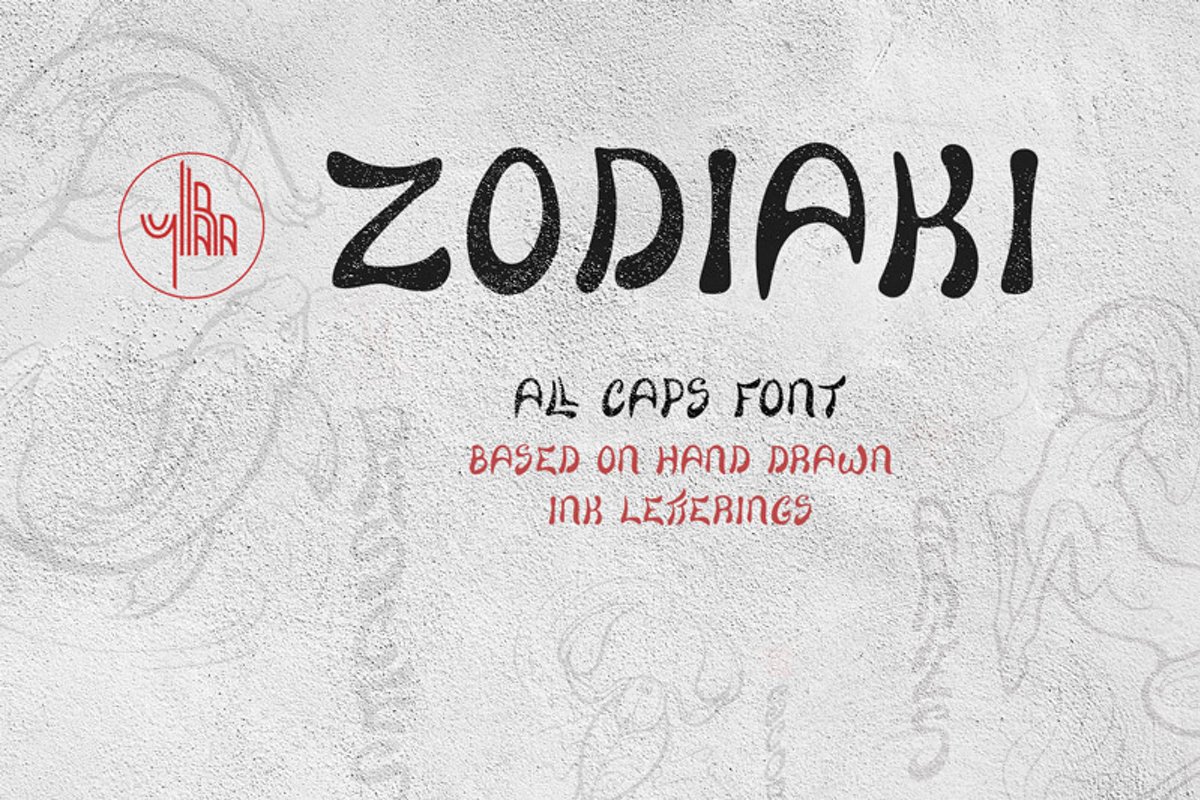
Zodiaki
All caps font, based on hand drawn letterings, that I made for my horoscope series. Includes all letters of the english alphabet (uppercase only), numbers and punctuation marks, 2 ligatures.
Everything started with ink illustration of Koi fish, made for InkTober challenge. Koi fish usually represent Pisces zodiac sign, so I decided to change lettering and make some designs with this illustration. Idea is a bit strange: asian style + western horoscope. But now it is a font and you are welcome to use it for something like a Chinese horoscope! :)